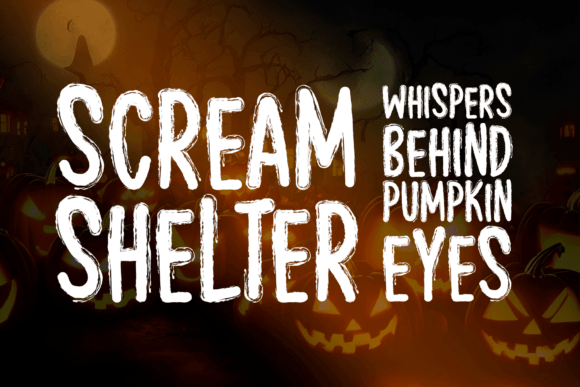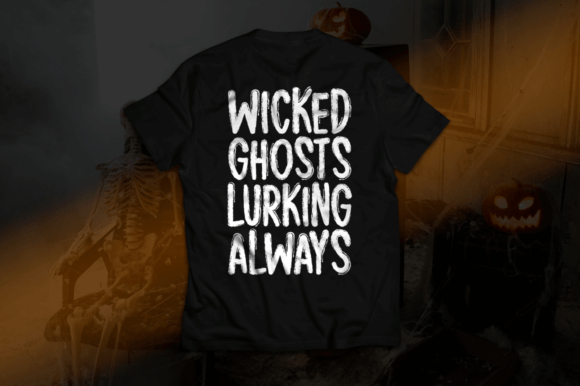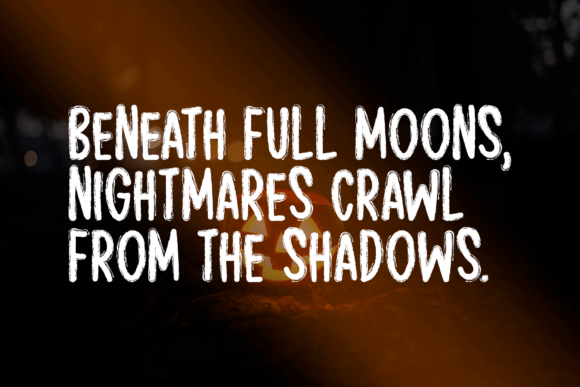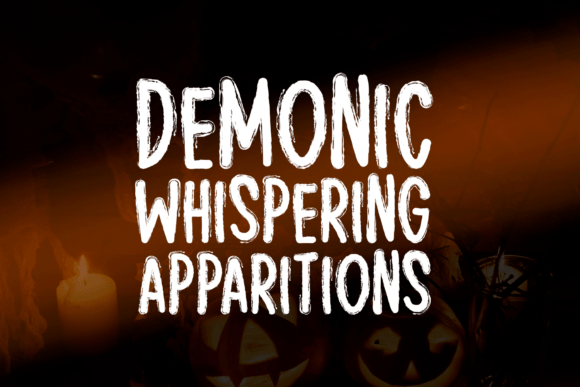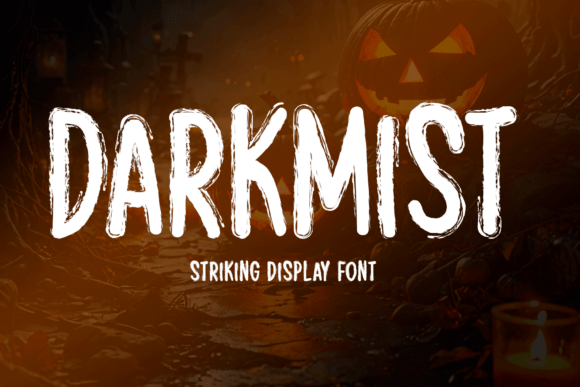
Unleash the Power of Darkmist Font: Elevate Your Designs with a Touch of Mystery
In the world of typography, fonts play a crucial role in conveying the tone and personality of a design. For creatives looking to add a dash of edginess and mystery to their projects, Darkmist Font is an exceptional choice. This display font is specifically designed to capture attention with its unique and dramatic style, making it perfect for a wide range of applications.
What Makes Darkmist Font Stand Out?
Darkmist Font boasts a distinctive and edgy aesthetic that sets it apart from more traditional fonts. Its dramatic presence is ideal for designs that require a touch of mystery and impact. Whether you’re working on stationery, logos, t-shirts, print materials, website headers, flyers, posters, music covers, or any other creative project, Darkmist Font works seamlessly across various mediums.
One of the key benefits of Darkmist Font is its versatility. Its unique style can be used in a multitude of design projects, including:
- Stationery: Add a touch of sophistication and mystery to your business cards, letterheads, and envelopes.
- Logos: Create a lasting impression with a bold and edgy logo that sets your brand apart.
- T-shirts and Apparel: Design eye-catching and stylish tees that are sure to turn heads.
- Print Materials: Elevate your brochures, catalogs, and other print materials with a font that demands attention.
- Website Headers: Make a statement with a bold and dramatic font that sets the tone for your website.
- Flyers and Posters: Create striking promotional materials that grab attention and leave a lasting impression.
- Music Covers: Add a touch of mystery and intrigue to your music album covers and promotional materials.
Why Choose Darkmist Font?
With Darkmist Font, you can:
- Add a touch of mystery and impact: Perfect for designs that require a bold and edgy aesthetic.
- Stand out from the crowd: Darkmist Font is unique and attention-grabbing, ensuring your designs don’t go unnoticed.
- Enhance your brand identity: Use Darkmist Font to create a lasting impression and establish a strong brand presence.
Darkmist Font is an exceptional choice for designers and crafters looking to add a touch of mystery and impact to their projects. Its unique and edgy style, versatility, and PUA encoding make it an ideal font for a wide range of creative applications. Whether you’re working on a logo, website header, or print material, Darkmist Font is sure to elevate your designs and leave a lasting impression.